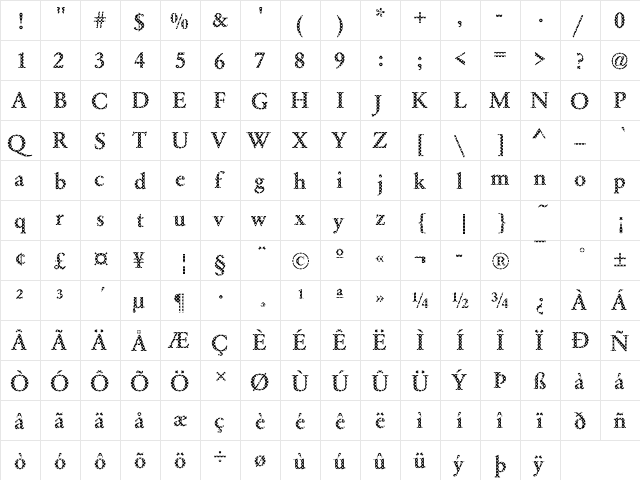
DTCGaramondM12 Regular
Design Context for DTCGaramondM12 Typeface
DTCGaramondM12 is a composed and adaptable typeface that performs quietly and consistently across a wide range of design contexts.